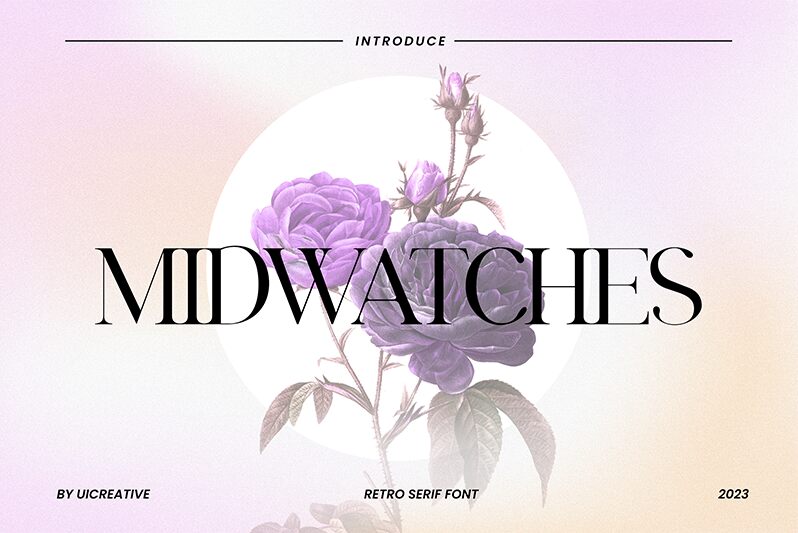
MIDWATCHES
Midwatches, a captivating serif font crafted by UI Creative, exudes a timeless elegance with its refined, sophisticated lines. The graceful serifs and balanced character proportions lend the typeface a distinct air of sophistication, evoking a sense of refined tradition. Midwatches' delicate yet sturdy forms create a visually appealing and highly readable text, making it a versatile choice for a wide range of design applications.
This font's versatility allows it to shine in various contexts, from high-end editorial layouts to elegant branding and packaging designs. Midwatches' classic appeal and legibility make it an excellent selection for publishing projects, such as books, magazines, and newspapers, where readability and timeless aesthetics are paramount. Additionally, its refined character can elevate corporate communications, annual reports, and other professional materials, lending an air of authority and prestige.